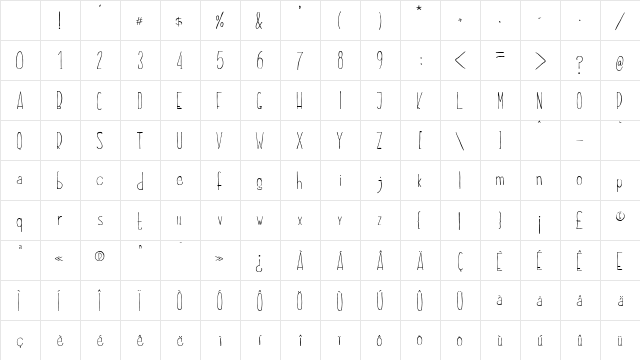
Complete Dayona Semi-condensed Thin glyph index. Displaying only characters natively supported by Dayona Semi-condensed Thin font.
Dayona is a composed and adaptable typeface that performs quietly and consistently across a wide range of design contexts. Its slender proportions lend an understated elegance to any composition. Its narrow stance lets it pack a punch even in space-constrained designs.